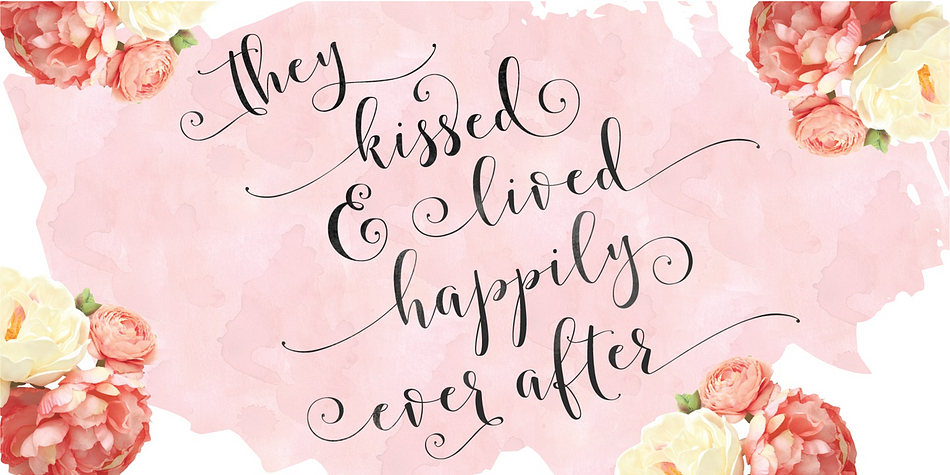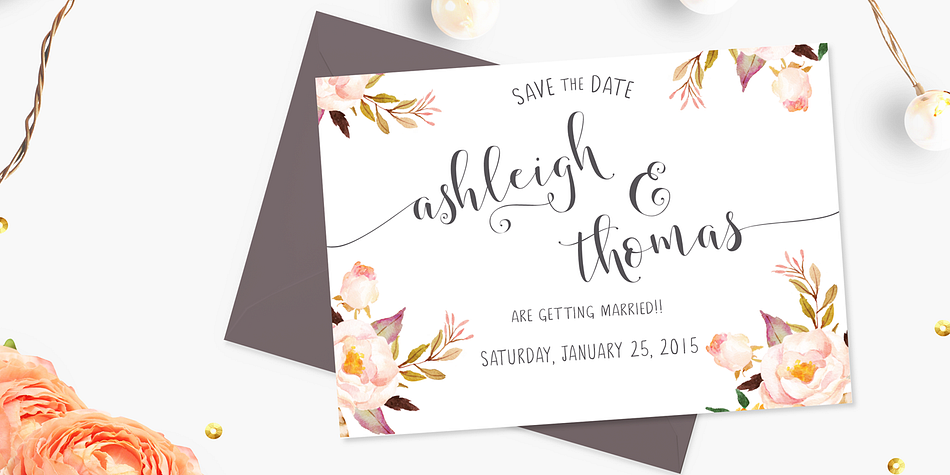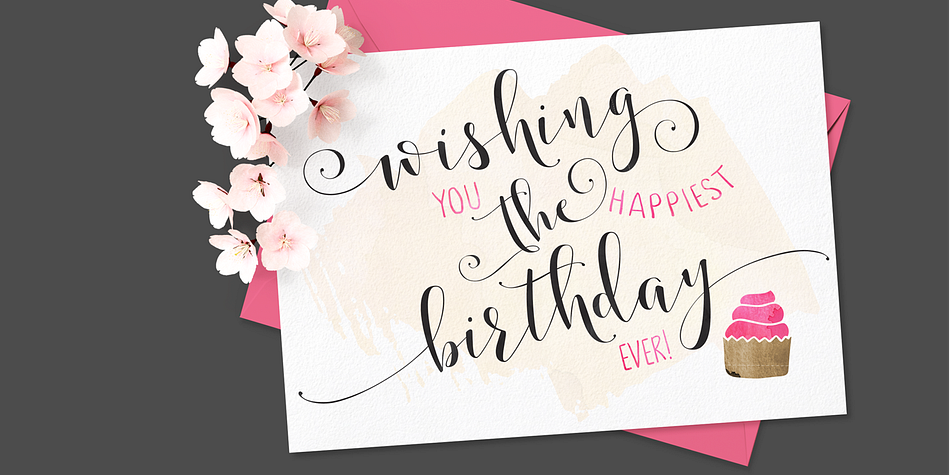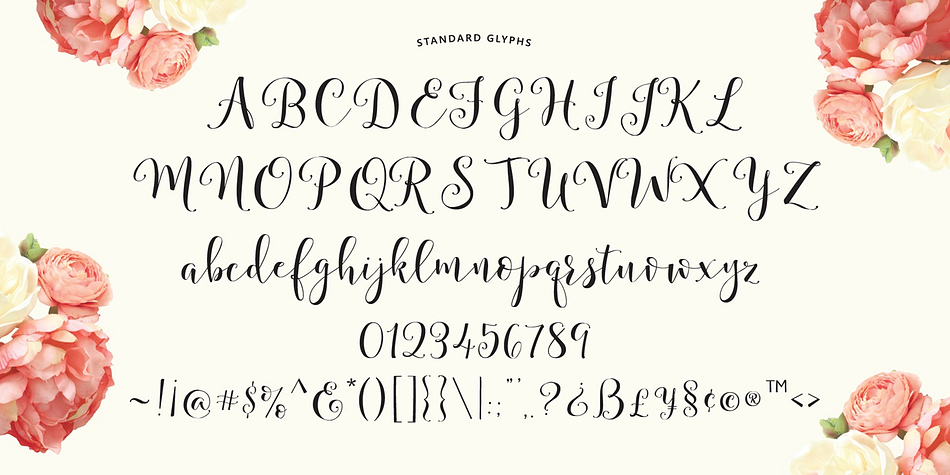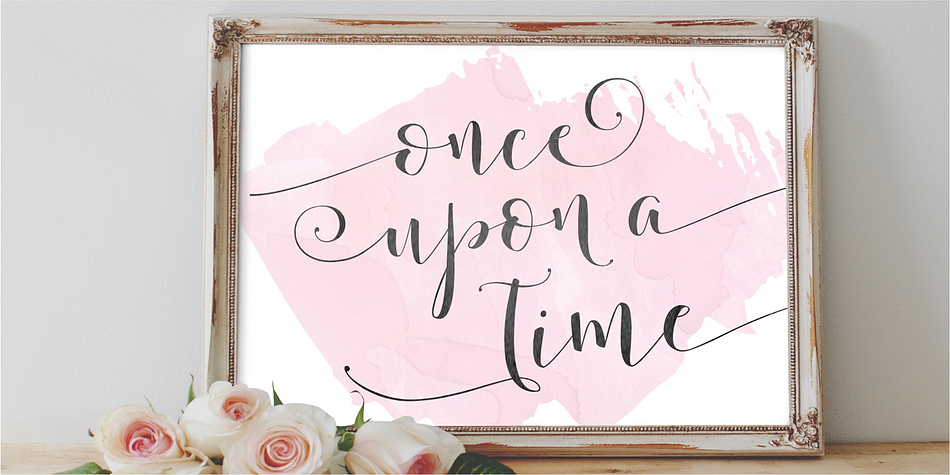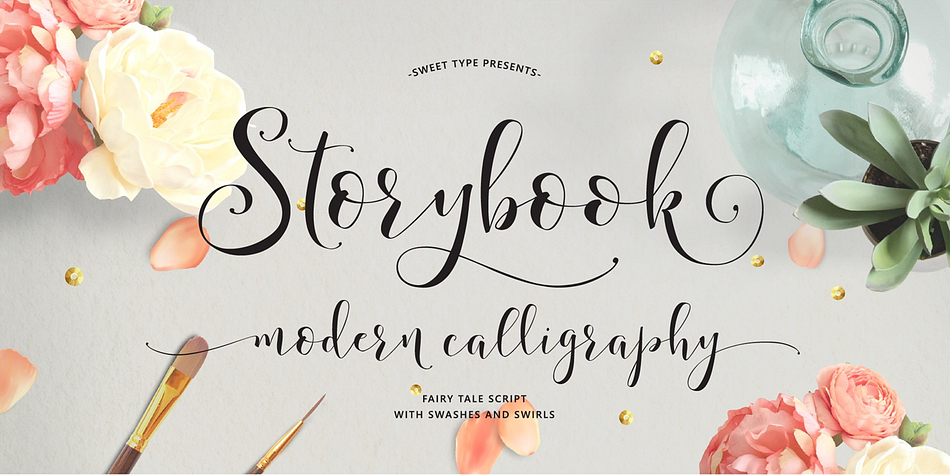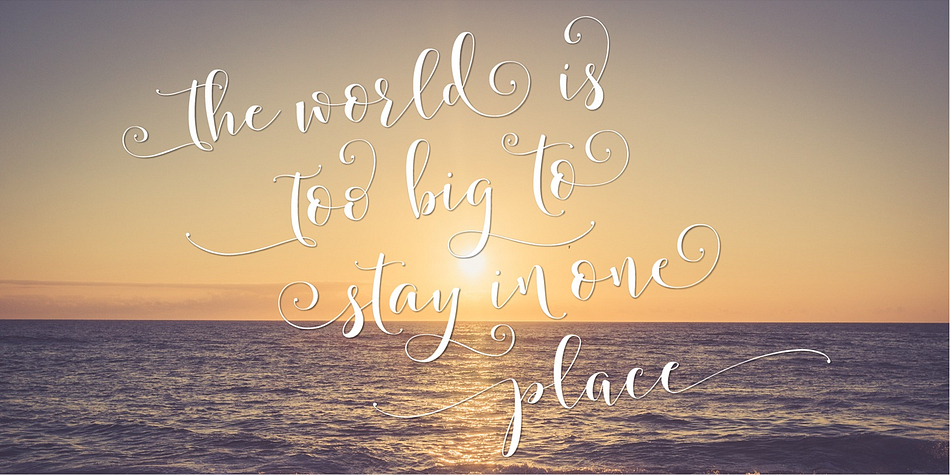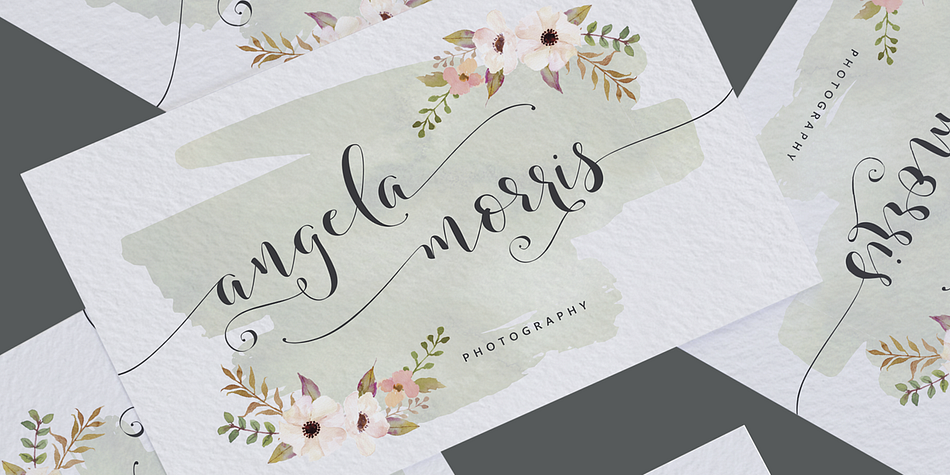
Designed by Emily Spadoni, Storybook is a script and modern calligraphy font family. This typeface has five styles and was published by Emily Spadoni.
Meet Storybook! You asked for longer swashes and bigger swirls - so here they are. This fresh, warm, decorative hand-lettered typeface is perfect for weddings, logos, stationery & more!
I’ve included 4 files of additional decorative glyphs. Everything you create will be a completely unique work of art. And so much fun!! The combinations are endless!
- 5 Lower-case styles with Swashes & Swirls
- Stylistic common letter combinations
- Multi-lingual glyphs included & decorated!